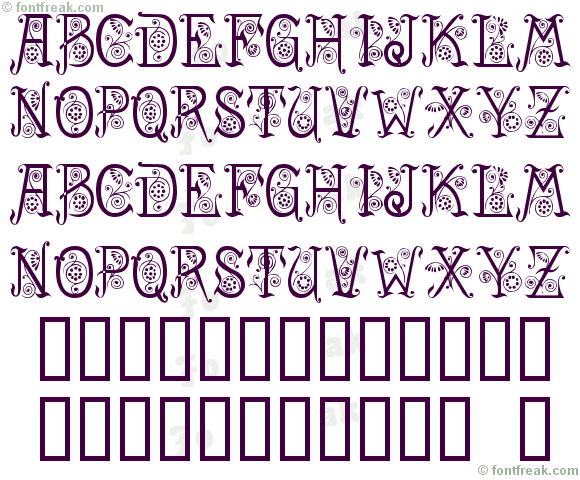
Spring
About Spring
The Spring font by Lime is a delightful decorative typeface that embodies a playful and whimsical aesthetic. Released in 2003, this freeware font stands out with its unique design, featuring intricate swirls and flourishes that evoke a sense of freshness and creativity. The stroke weight is moderate, creating a balanced look that maintains clarity while also showcasing its decorative elements. The character spacing is generous, allowing each letter to breathe and enhancing readability, making it an excellent choice for various projects.
This font is particularly well-suited for use in wedding invitations, where its charming flair can add a romantic touch. Additionally, it works wonderfully for greeting cards, seasonal marketing materials, and even restaurant menus, where a hint of creativity can enhance the dining experience. Graphic designers, small business owners, and content creators will find Spring font free download to be an invaluable asset in their design toolkit, enabling them to produce eye-catching visuals that stand out in a crowded marketplace.
The Spring font's distinctive style sets it apart from more conventional typefaces, making it an ideal choice for projects that require a touch of personality. Its decorative features not only capture attention but also convey a sense of warmth and friendliness, inviting the audience to engage. Whether used in print or digital formats, this font adds a unique character that can elevate any design. With its versatility and charm, the Spring font by Lime is a fantastic option for those looking to infuse their work with a playful yet sophisticated aesthetic.